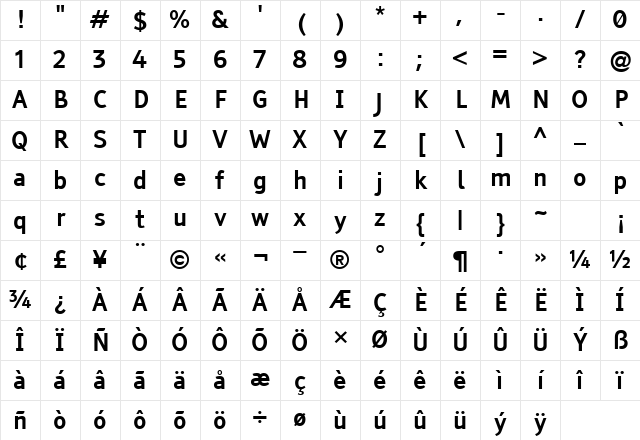
Complete Tiresias Infofont Z Regular glyph index. Displaying only characters natively supported by Tiresias Infofont Z Regular font.
Tiresias Infofont Z is a composed and adaptable typeface that performs quietly and consistently across a wide range of design contexts.